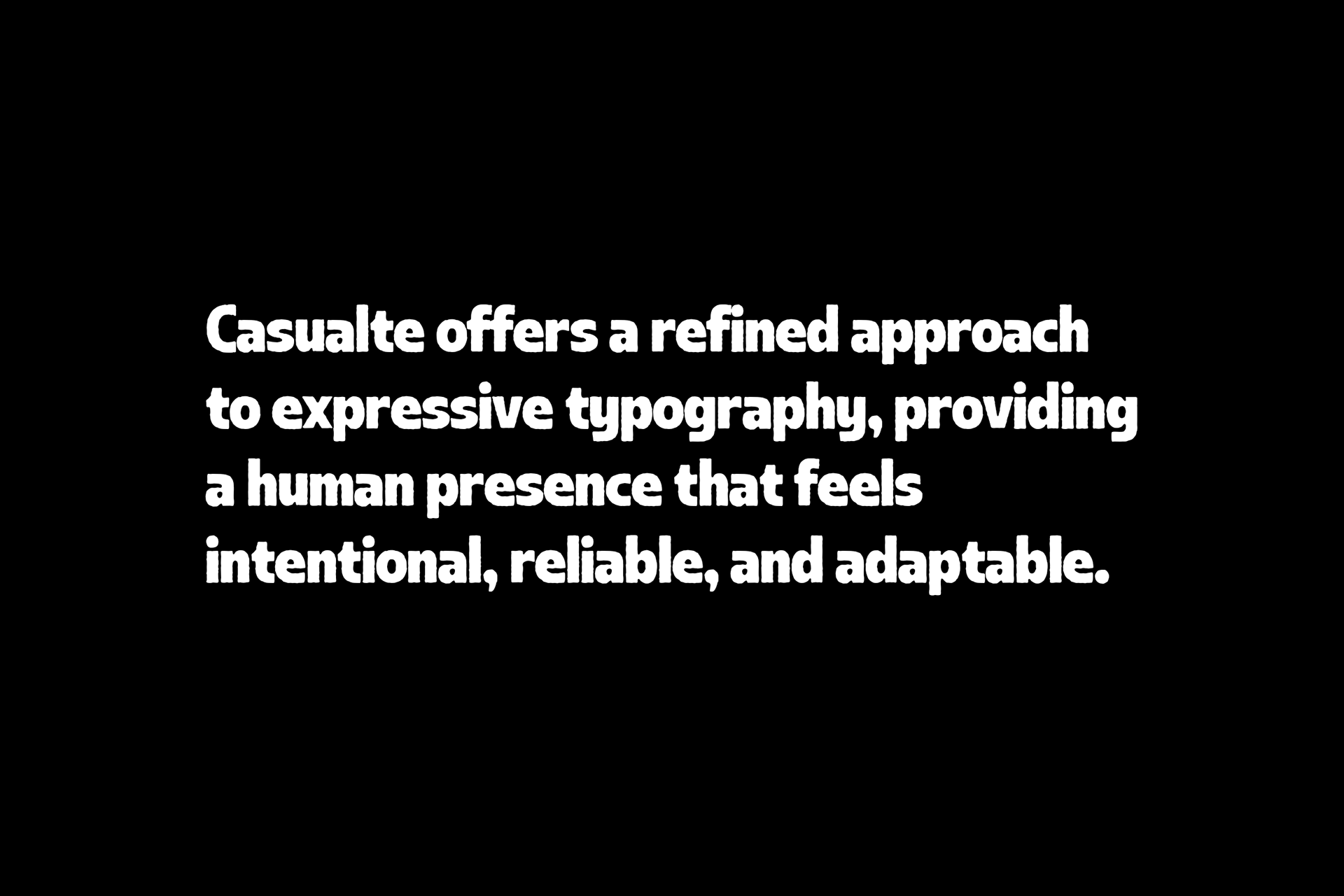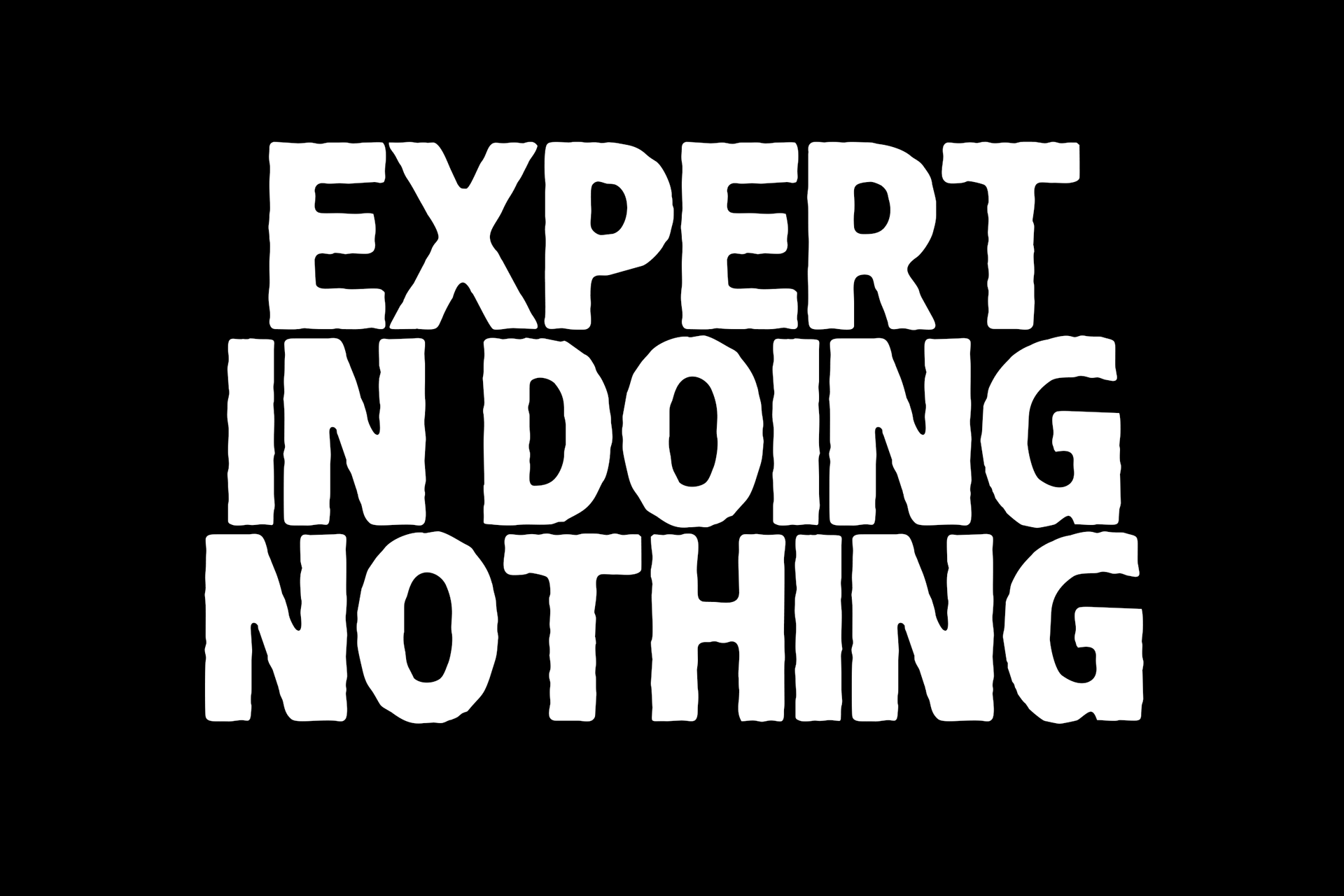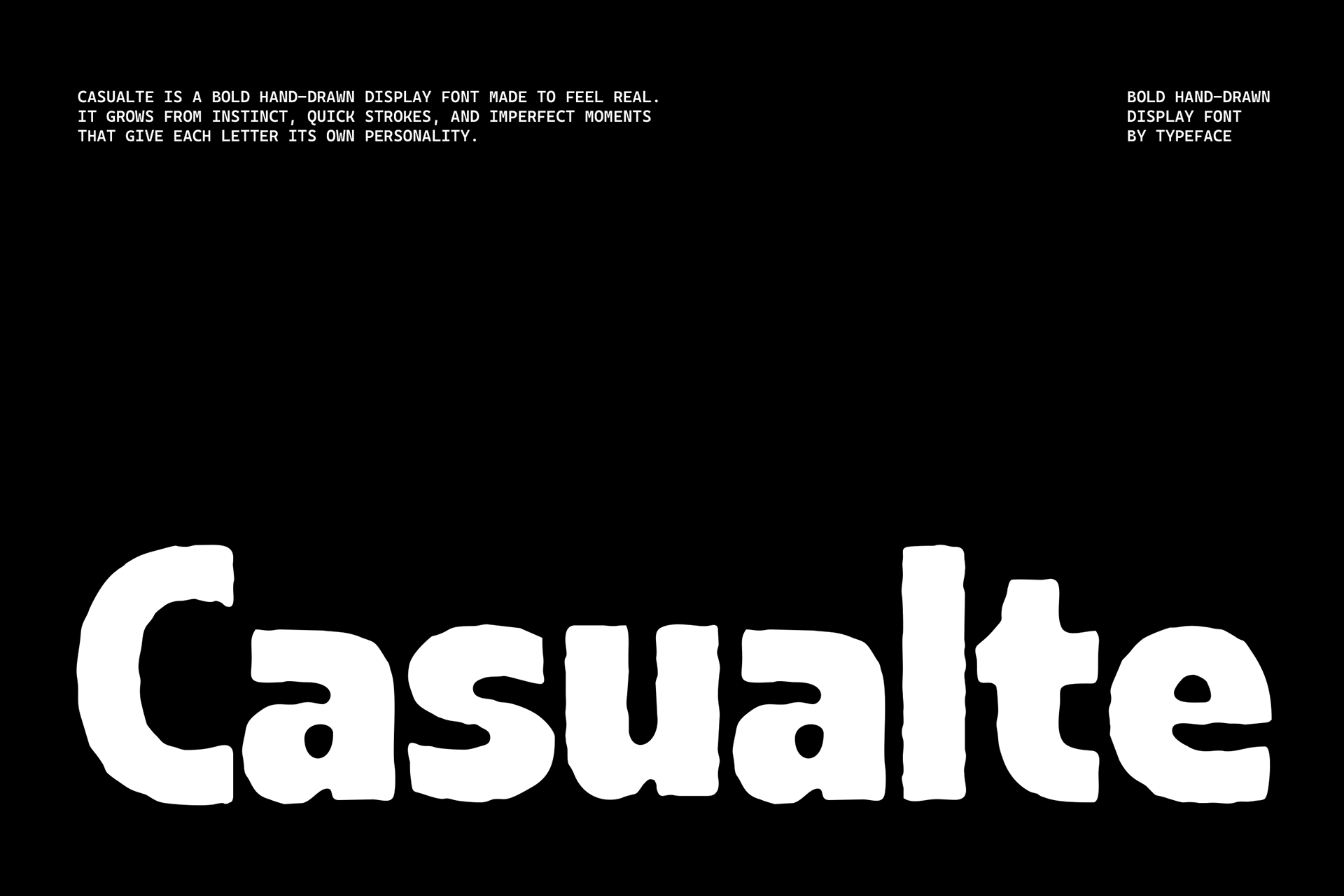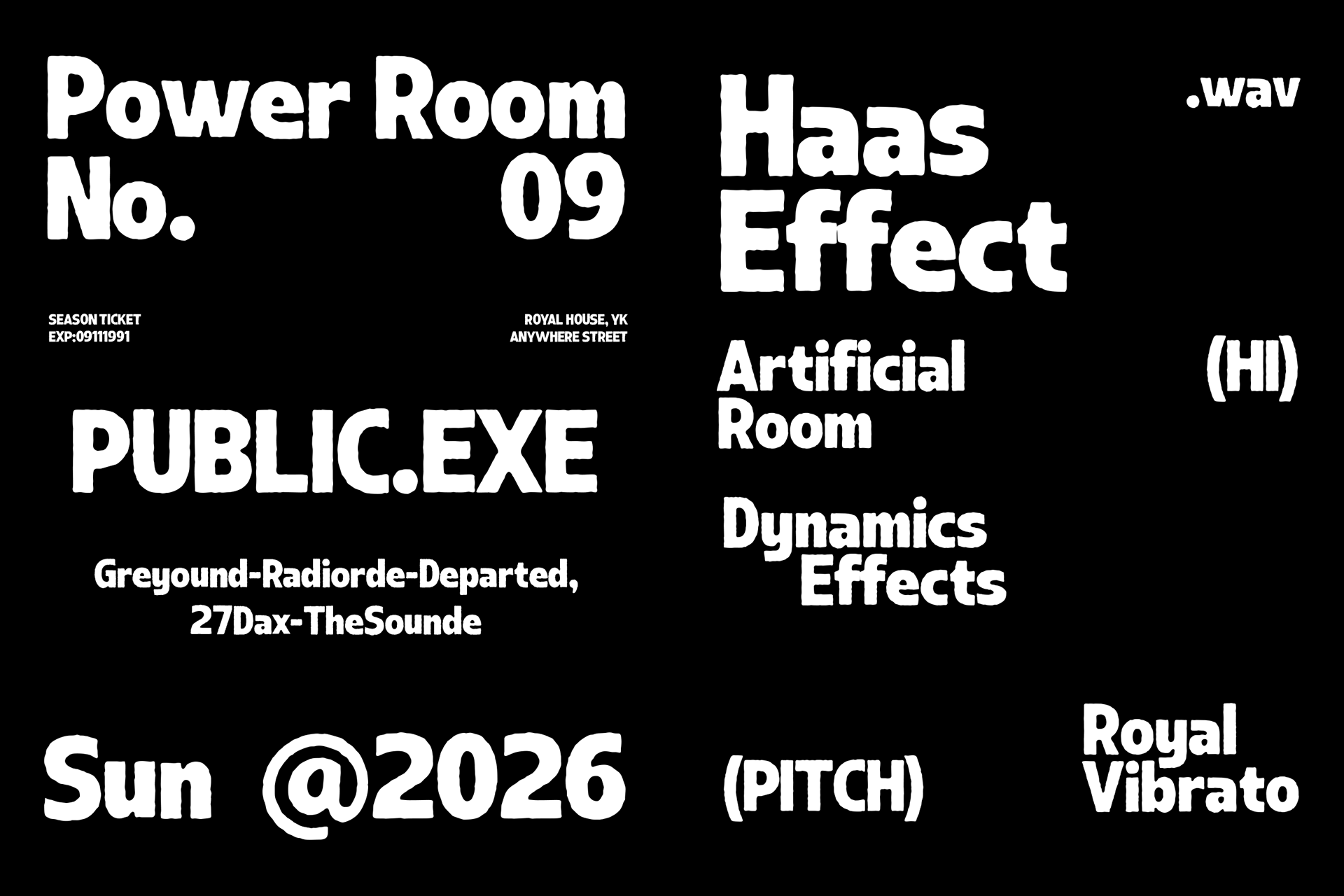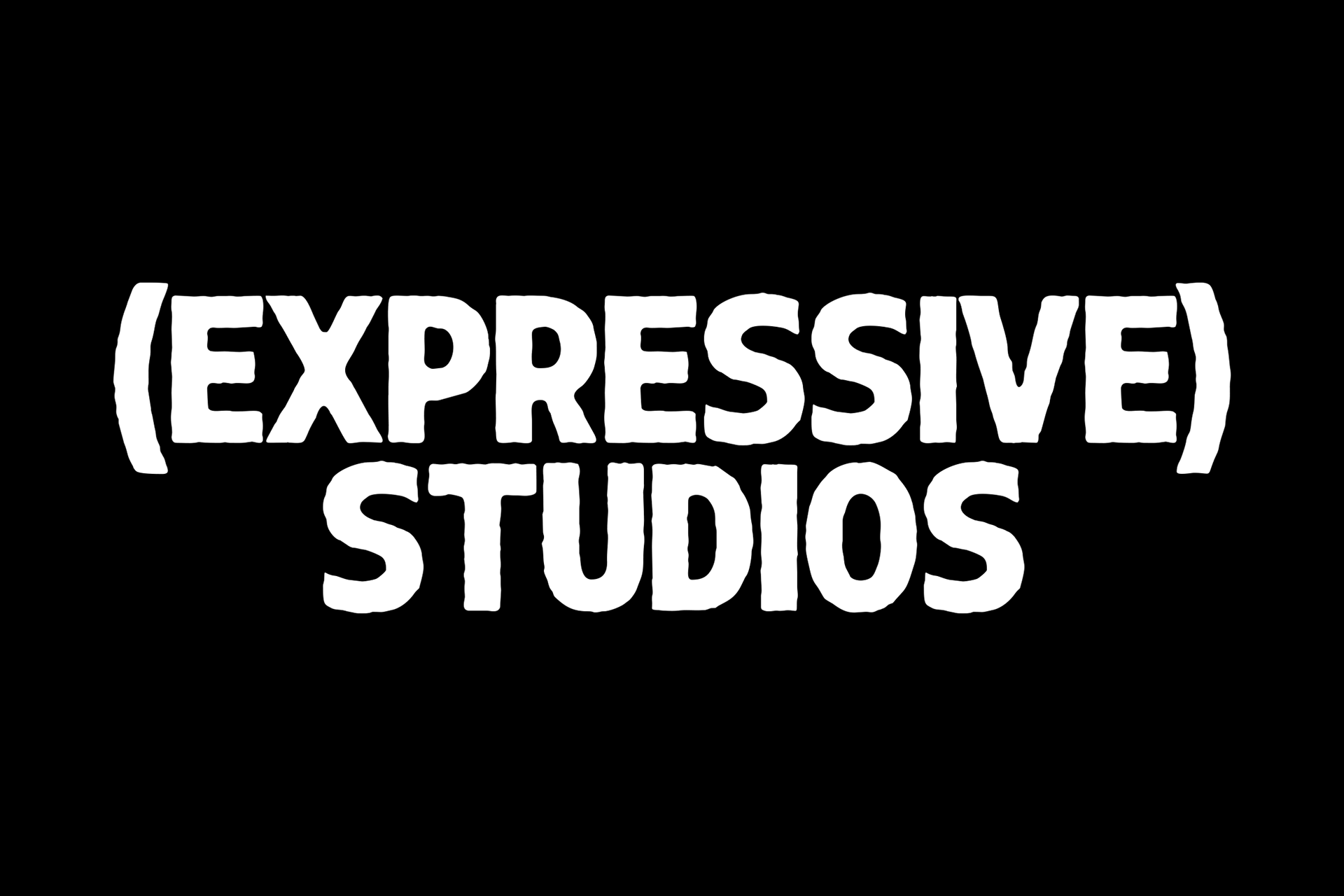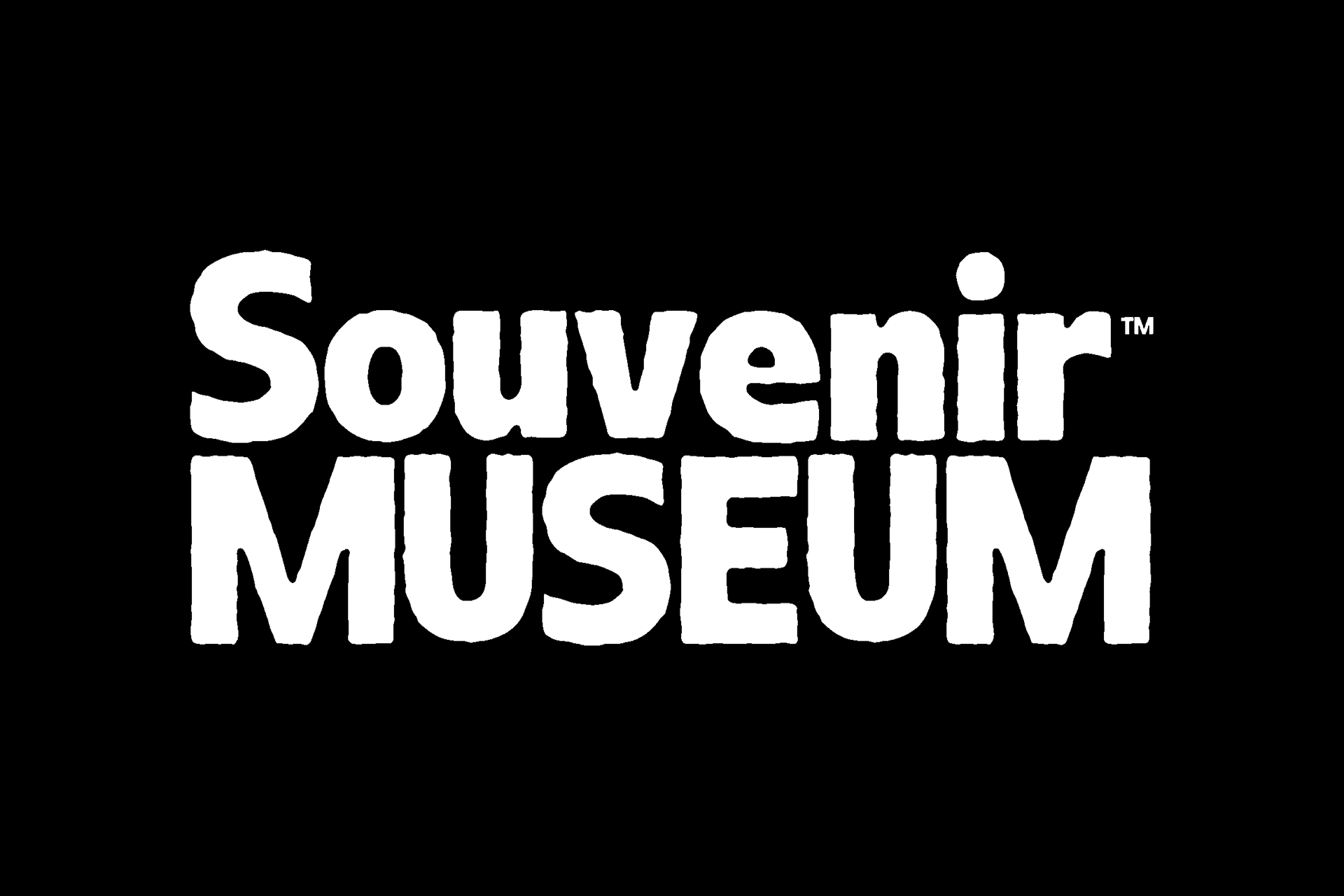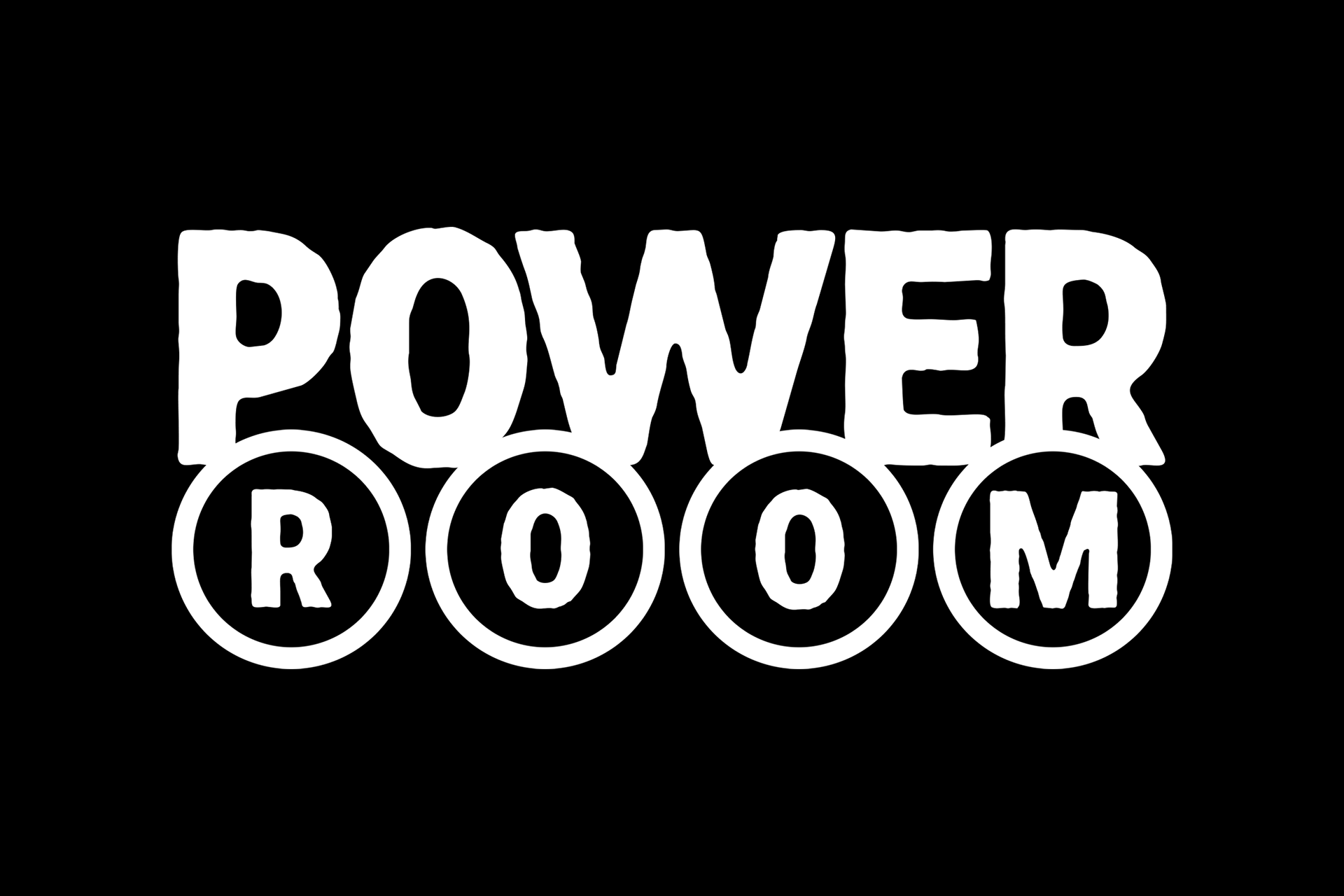
Casualte is a modern display typeface designed to balance character and clarity. Its hand-influenced forms add warmth and personality while maintaining a structured and professional appearance.
Developed for branding systems, headlines, marketing materials, and digital communication, Casualte performs well across print and screen. The font brings a distinct voice without distracting from the message, making it suitable for contemporary brands and creative-led businesses.
Casualte offers a refined approach to expressive typography, providing a human presence that feels intentional, reliable, and adaptable.